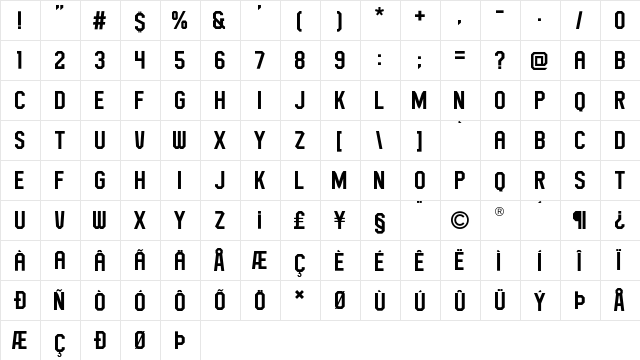
Big Star Regular
Design Context for Big Star Typeface
Big Star takes a measured approach to typography — its balanced proportions and neutral character make it a reliable workhorse for both digital and print work.